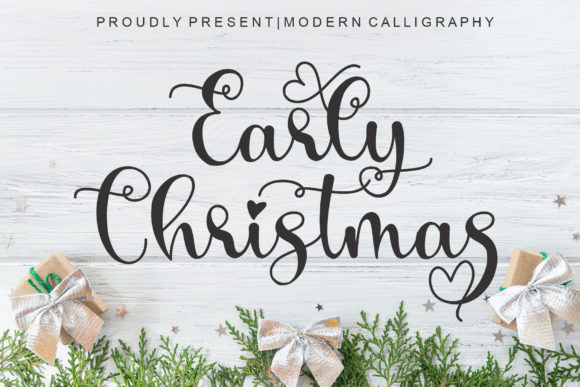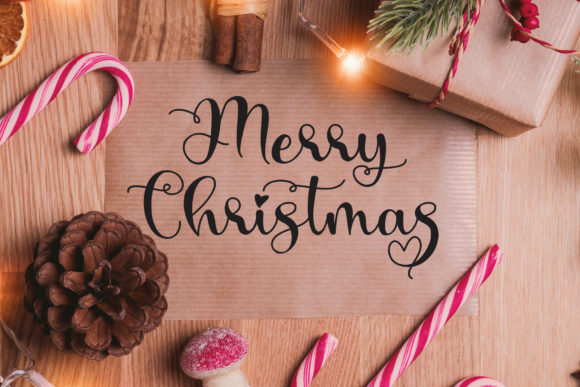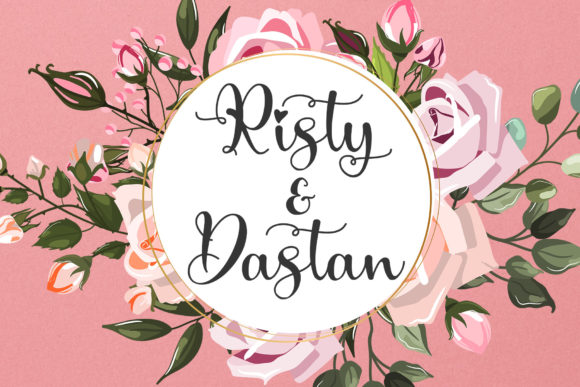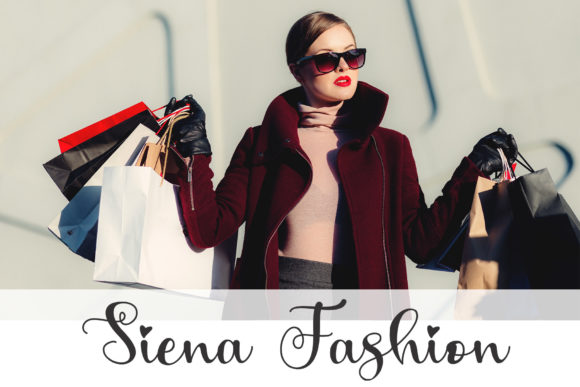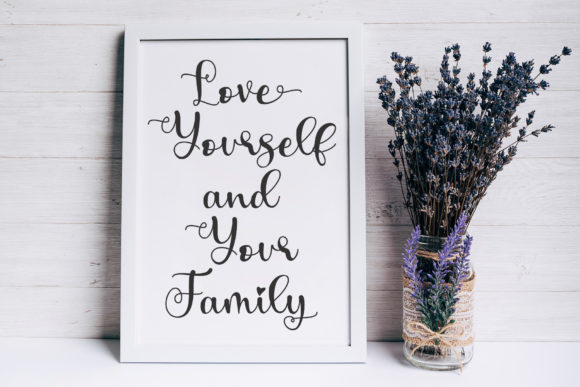
Early Christmas Font
About Early Christmas Font
Early Christmas is a lovely script font featuring charming, playful characters that seem to dance along the baseline. This font is PUA encoded which means you can access all of the glyphs and swashes with ease!